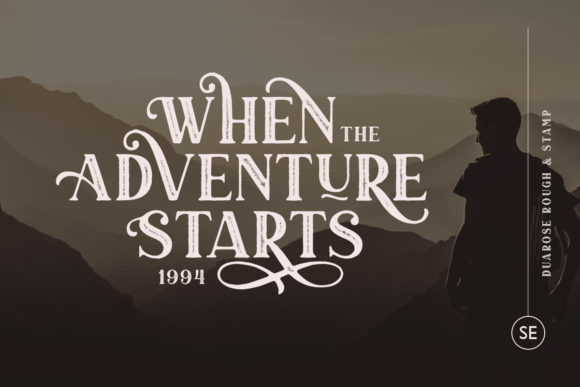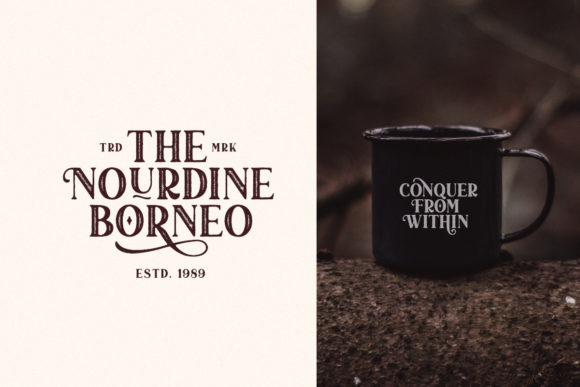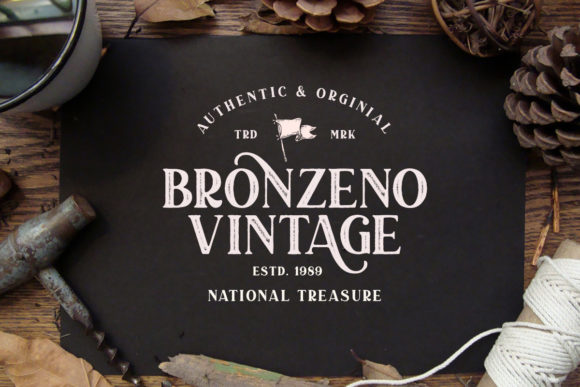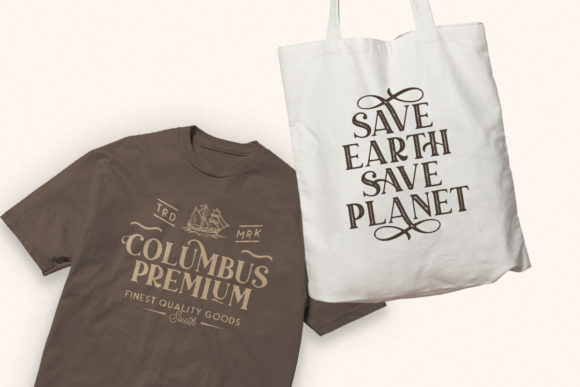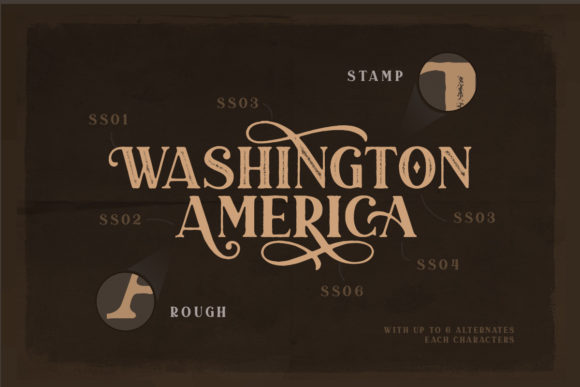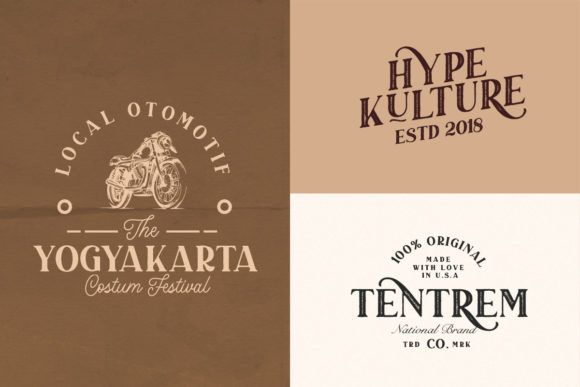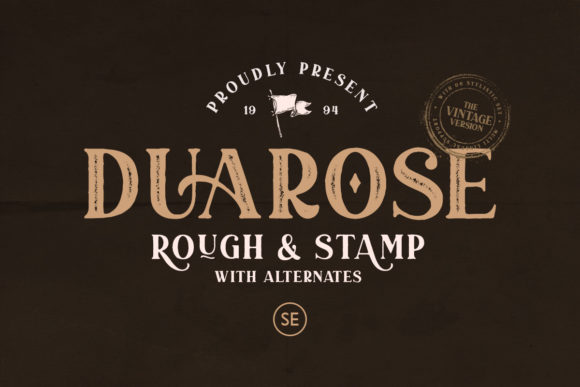
Duarose Font: Elevate Your Designs with Elegance and Charm
In the world of typography, fonts play a pivotal role in conveying the essence and aesthetic of a design. Among the myriad of fonts available, Duarose Font stands out for its unique blend of elegance, vintage charm, and versatility. This comprehensive guide will delve into the characteristics, benefits, and uses of the Duarose Font, making it an indispensable resource for designers and crafters seeking to infuse their projects with a touch of sophistication.
The Essence of Duarose Font
Duarose Font is an elegant serif font that exudes a vintage feel, reminiscent of classic typography from bygone eras. Its design is characterized by intricate details, refined lines, and a sophisticated appearance that instantly elevates any design project. Whether you’re working on a logo, a branding project, a website, or a crafting endeavor, Duarose offers the perfect blend of charm and elegance.
Key Features of Duarose Font
- Elegant Serif Design: The font’s serif design adds a level of sophistication and class to any project, making it ideal for designs that require a refined look.
- Vintage Feel: With its roots in classic typography, Duarose brings a nostalgic charm that can add depth and character to your designs.
- PUA Encoding: Duarose is PUA (Private Use Area) encoded, which means it offers easy access to all glyphs and swashes. This feature allows designers to explore a wide range of creative possibilities without the complexity of character mapping.
- Versatility: From digital designs to print materials, Duarose can be used across various mediums, making it a versatile addition to any designer’s toolkit.
Duarose Font is not just another typeface; it’s a tool that can transform your design projects in several ways:
- Enhances Brand Identity: For businesses, using a unique and elegant font like Duarose can help in creating a distinctive brand identity that stands out from competitors.
- Elevates Aesthetic Appeal: For crafters and artists, Duarose can add a professional and polished look to handmade products, signage, and promotional materials.
- Saves Time: The PUA encoding of Duarose means that designers can quickly access and incorporate the font’s extensive features without a steep learning curve, saving time and increasing productivity.
Using Duarose Font in Design Projects
Incorporating Duarose into your design projects is straightforward, thanks to its compatibility with various design software. Here are some ideas to get you started:
- Logo Design: Use Duarose to create elegant and memorable logos that leave a lasting impression.
- Web Design: Enhance the user experience of your website with Duarose, making it not only visually appealing but also easy to read.
- Branding and Packaging: Apply Duarose to your branding and packaging designs to achieve a cohesive and luxurious look.
- Crafting and DIY Projects: Add a touch of elegance to your handmade crafts, such as journals, invitations, and home decor items.
Duarose Font is a remarkable addition to the world of typography, offering a perfect blend of elegance, vintage charm, and functionality. Its suitability for a wide range of design projects, coupled with its PUA encoding for easy use, makes it an invaluable asset for designers and crafters alike. Whether you’re looking to create a stunning brand identity, elevate your digital or print designs, or simply add a touch of sophistication to your crafting projects, Duarose Font is the perfect choice. Explore the creative possibilities with Duarose and witness how it can transform your designs into timeless pieces of art.